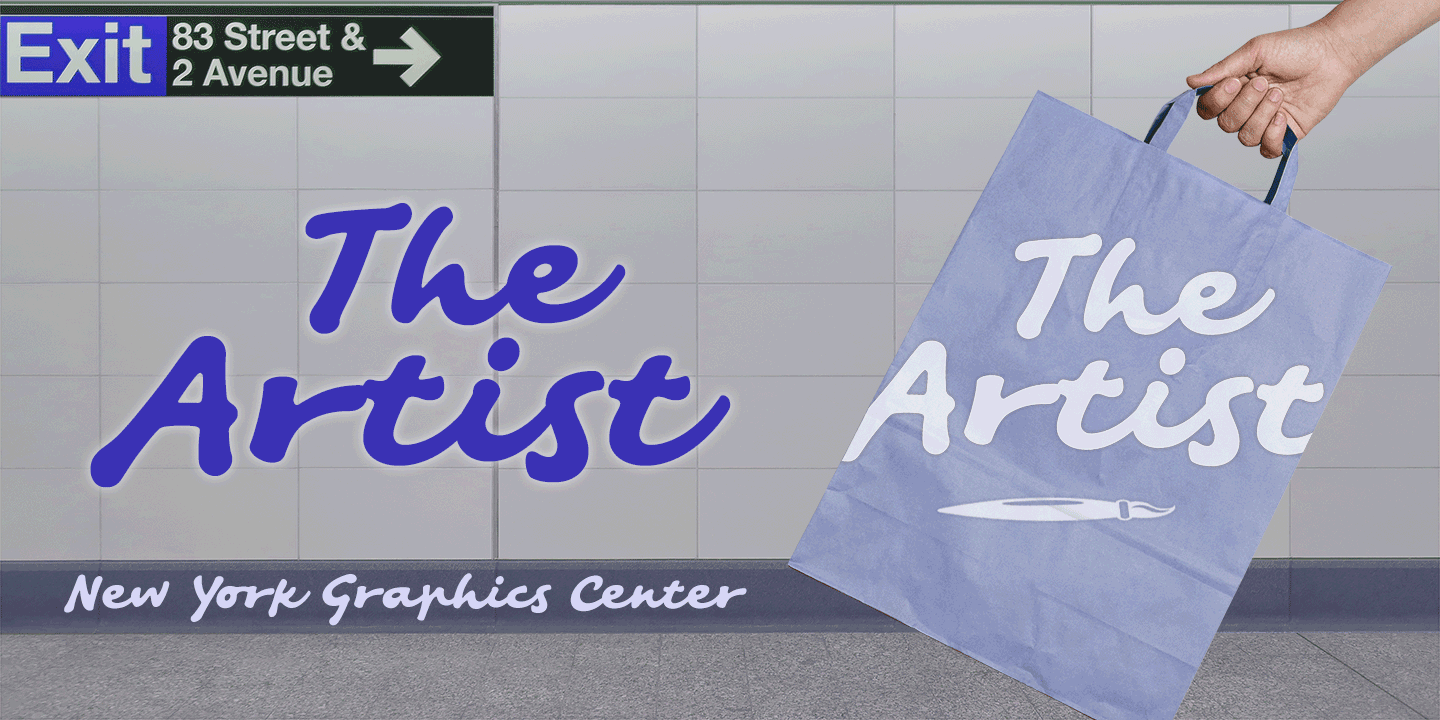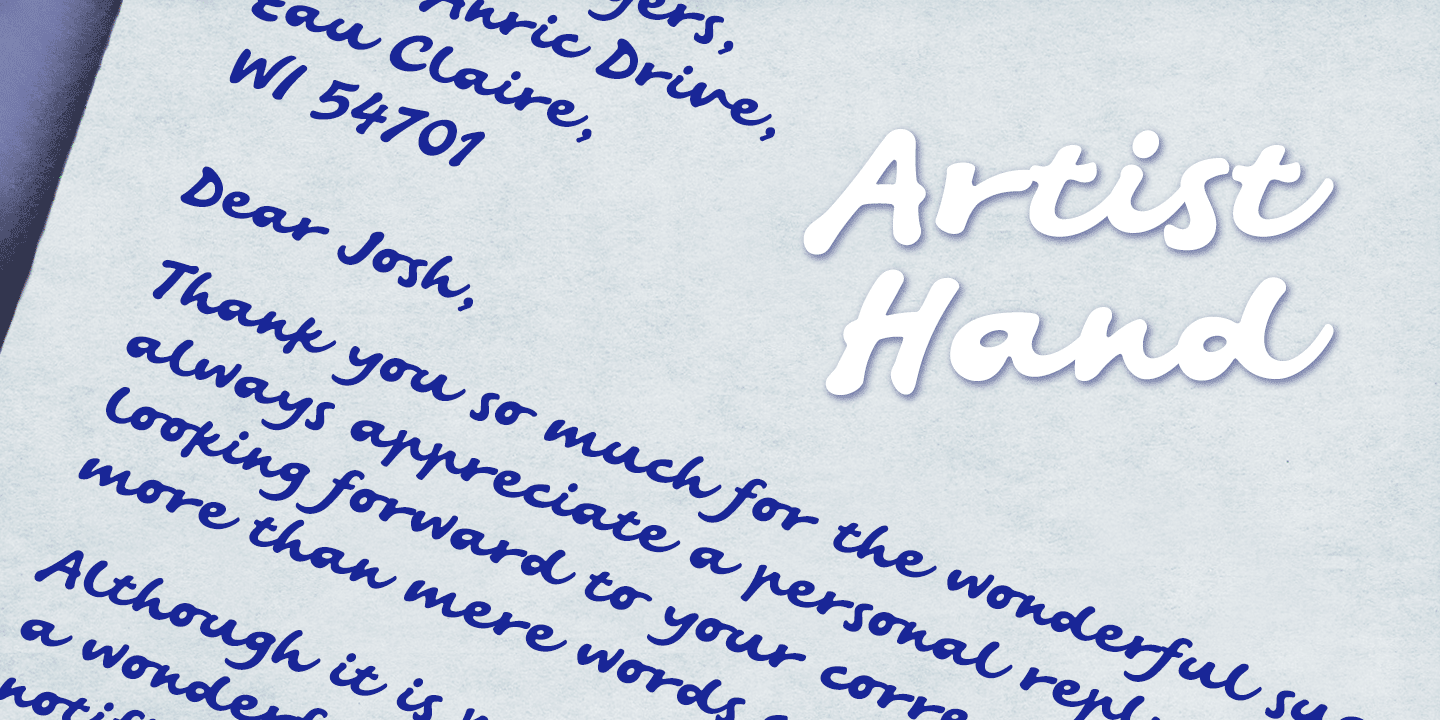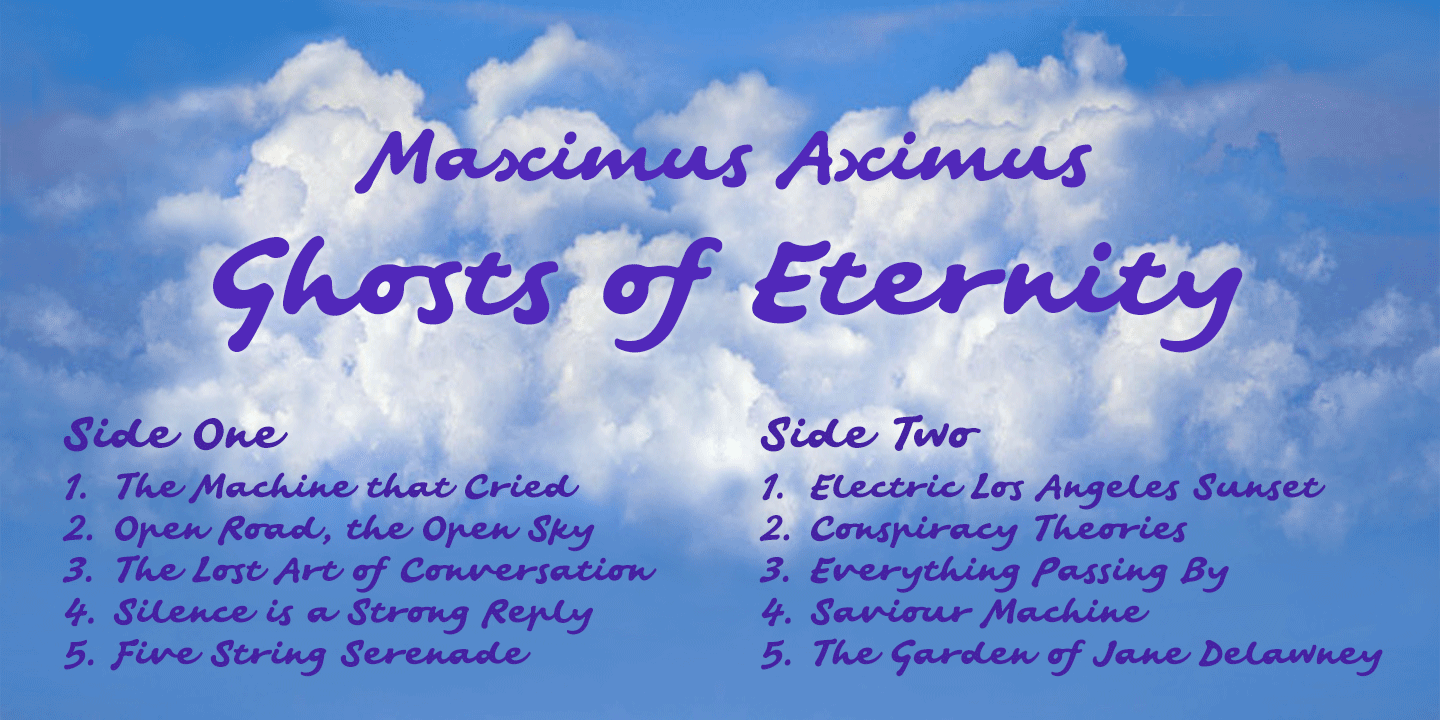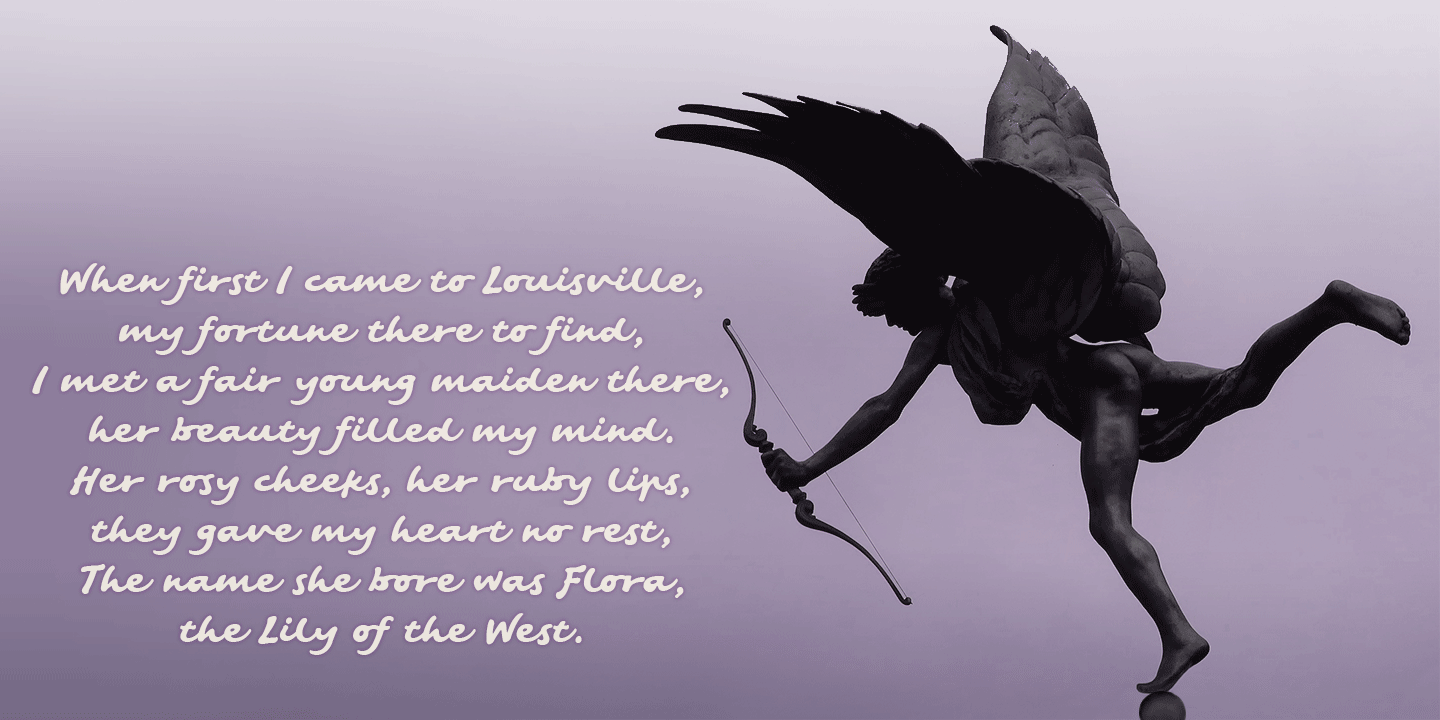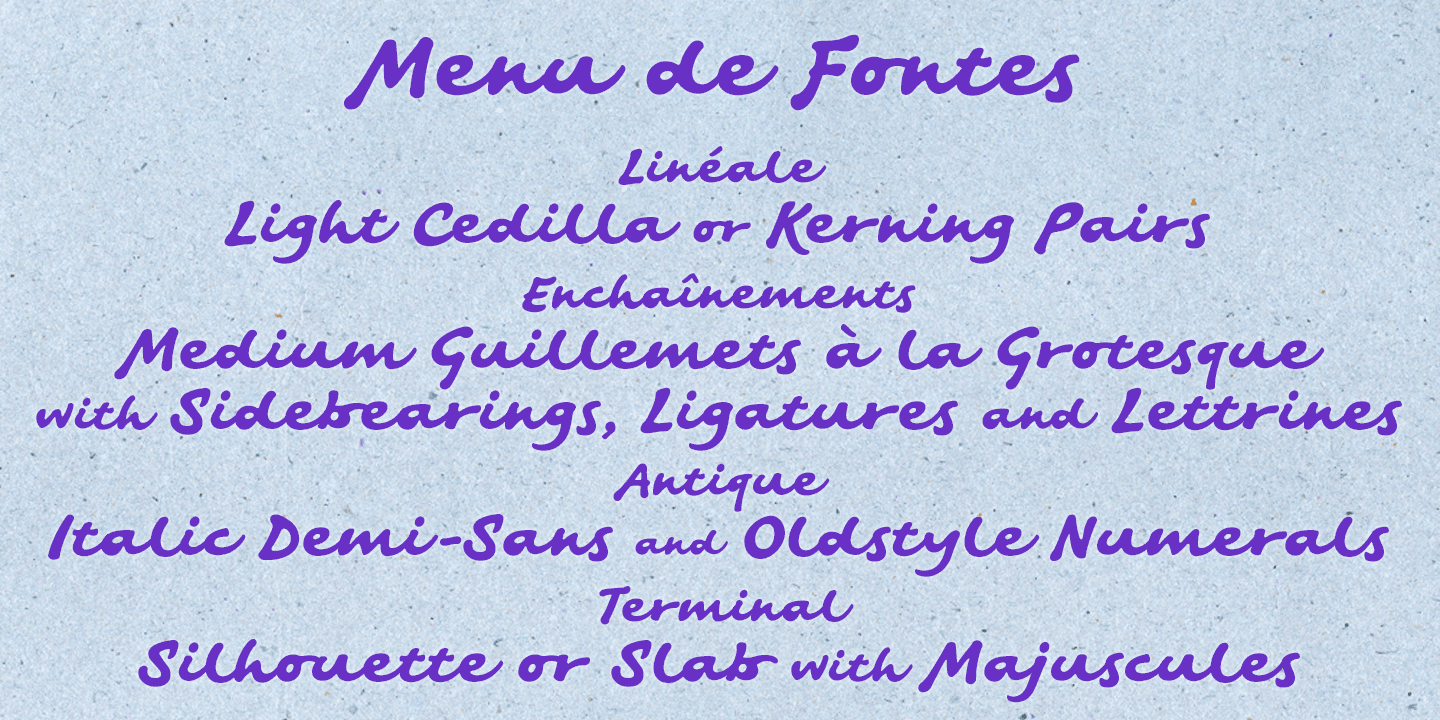
About Artist Hand
Artist Hand is a bold, informal script inspired by artistic handwriting. The font radiates confidence, is largely cursive, and contains glyphs that are friendly, familiar and highly legible. Artist Hand contains a full complement of Latin Extended-A…